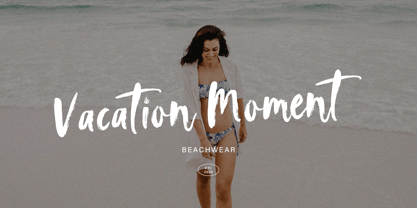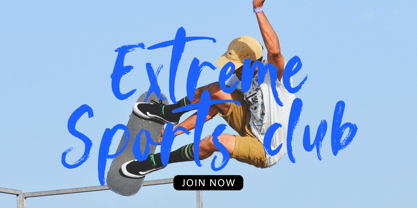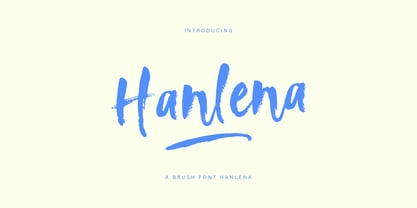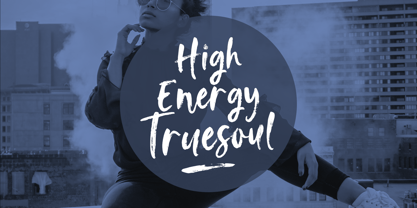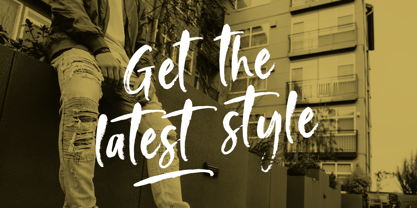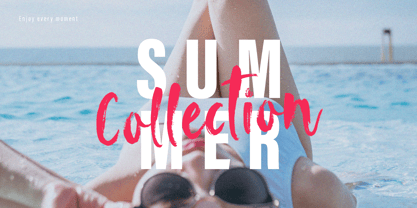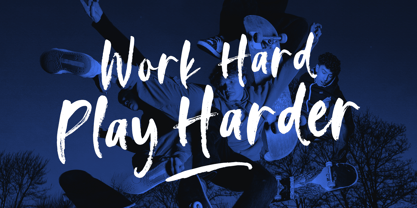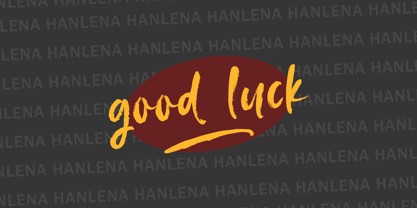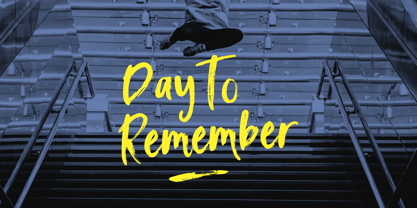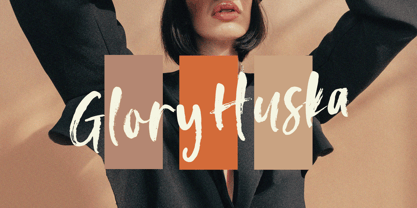
Hanlena Brush
by Gatype
The Hanlena Brush Font Family was designed by khaidir and published by Gatype. Hanlena Brush contains 1 styles. More about this family
Hanlena Brush is textured brush font, contemporary approach to design, handmade natural with an irregular baseline. Hanlena Brush for use in title design. Such as apparel, invitations, books tittle, stationery design, quotes, branding, logos, greeting card, t-shirt, packaging design, poster and more. Hanlena Brush includes a complete set of uppercase and lowercase letters, as well as multi-language support, numbers, punctuation, ligatures. Thanks so much for looking and please let me know if you have any questions.